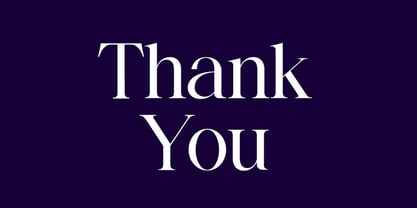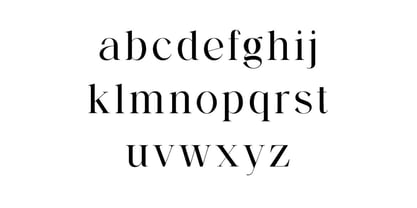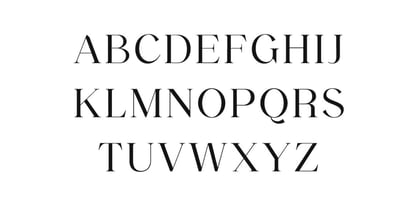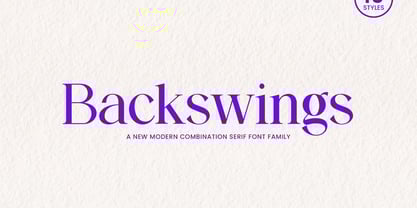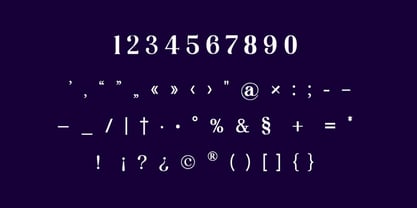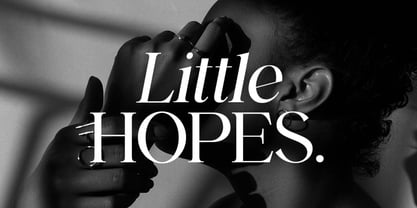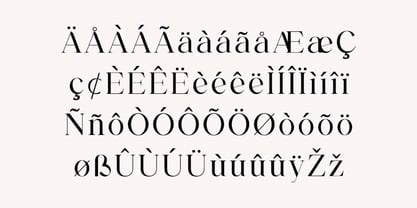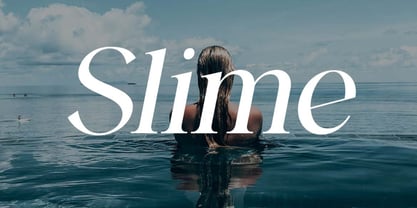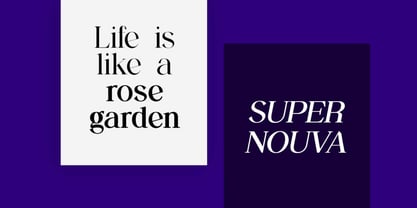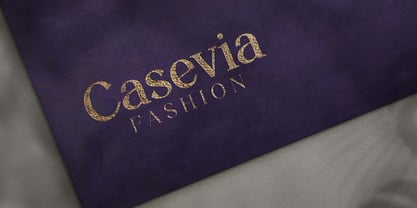
Backswings
by UICreative
The Backswings Font Family was designed by Hero and published by UICreative. Backswings contains 10 styles and family package options.
Backswings Modern Combination Serif Family Font. The modern display font feels beautiful classy, elegant, and stylish. This font is ideally suited for a wide variety of projects, such as signature, stationery, logo, wedding, typography quotes, magazine or book covers, website headers, branding, and more. Also, fashion-related branding or editorial design displays both masculine and feminine qualities.
Designers: Hero
Publisher: UICreative
Foundry: UICreative
Design Owner: UICreative